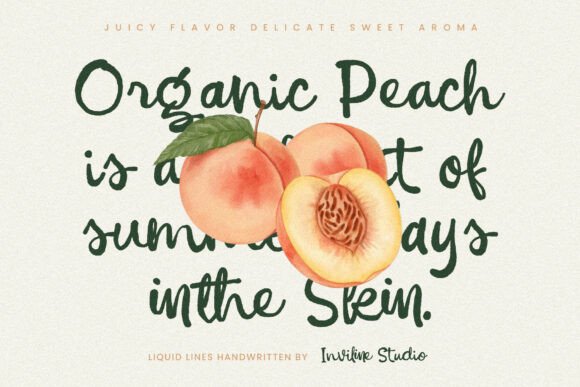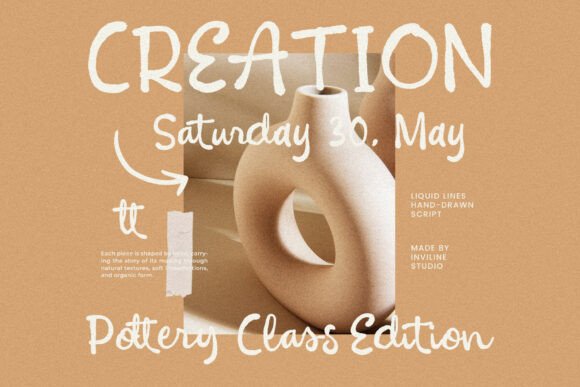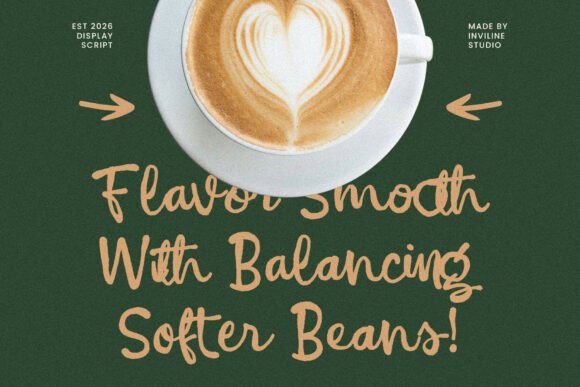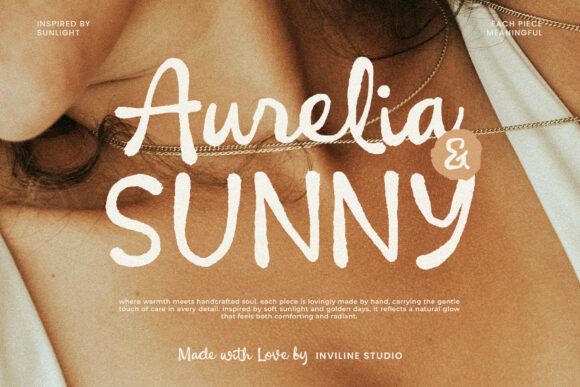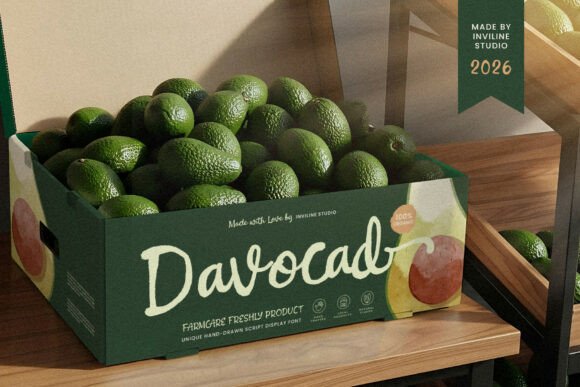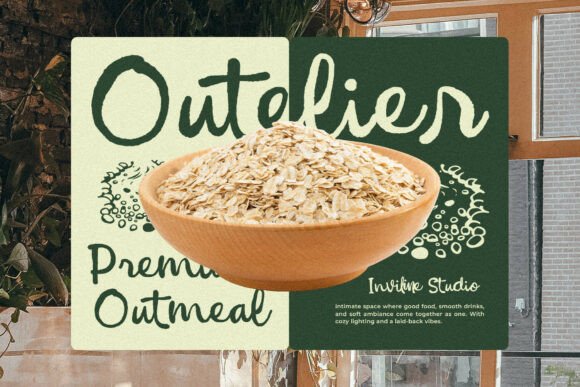
Introduction to Liquid Lines Font
As you sit in your cozy workspace, surrounded by the hum of creativity, the glow of your computer screen beckons you to start your next project. The blank canvas stares back, awaiting the strokes of your imagination. It’s in these moments that a high-quality design resource can be the difference between a mediocre creation and a masterpiece. Enter Liquid Lines Font – an extraordinary script display font crafted with passion and brilliance by Inviline Studio.
With its subtle imperfections and organic curves, Liquid Lines Font captures the essence of human touch, blending seamlessly with the digital realm. This exceptional font is not just a design resource, but a key to unlocking your creative potential. Its versatility, robust full character set, and multilingual support make it an invaluable asset for any designer working on a creative project.
Whether you’re working on a personal project or a commercial endeavor, Liquid Lines Font is sure to elevate your design to new heights. With its intelligent OpenType features and stylistic alternates, this font is the perfect companion for designers seeking to add a touch of elegance and sophistication to their work.
Key Features of Liquid Lines Font
- Unique, hand-drawn design with a transparent background, perfect for creative projects that require a touch of elegance and sophistication.
- Designed to be highly versatile, the Liquid Lines Font can be used for a wide range of creative projects, from logos and branding to typography and packaging design.
- Includes a comprehensive character set, covering a wide range of languages and special characters, making it a valuable resource for designers and developers worldwide.
Honest Review: Liquid Lines Font
I recently had the chance to work with the Liquid Lines Font, and I must say it’s been a game-changer for my creative projects. This font is perfect for designers who need a high-quality, unique design resource.
- ✨ The Liquid Lines Font is incredibly versatile and can be used for a wide range of creative projects, from graphic design to digital art.
- ✨ The font’s transparent background makes it easy to layer and combine with other design elements.
- ⚠️ The font can be a bit tricky to use with complex designs, as it may require some experimentation to get the desired effect.
- ⚠️ Some users may find the font’s unique style a bit too bold or overwhelming, especially for more minimalist designs.
Overall, I’m really impressed with the Liquid Lines Font and would highly recommend it to designers looking for a creative and high-quality design resource. With a little practice and experimentation, it’s a great addition to any design toolkit.